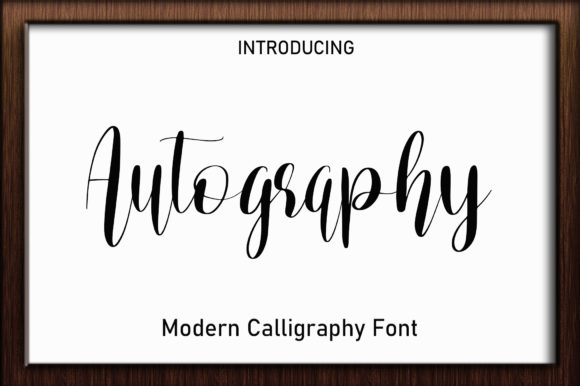
About Autography Font
Autography is an elegant and sophisticated script font with a delicate and thin lettering style that exudes a sense of refinement and charm. Its graceful curves and flowing strokes make it a perfect choice for creating stunning designs that leave a lasting impression.
The simplicity of Autography’s design adds to its timeless appeal, making it suitable for a wide range of applications. Whether you’re working on wedding invitations, thank-you cards, quotes, greeting cards, logos, business promotions, advertisements, or social media posts, Autography brings a touch of elegance and class to your projects.
One of the remarkable features of Autography is its ability to enhance the aesthetics of stationary art. Its ravishing style elevates the visual impact of your creations, turning ordinary designs into works of art. The font’s thin lettering provides an air of sophistication, making it a standout choice for projects that require an upscale and refined appearance.
Autography’s versatility shines through in its compatibility with various design mediums. From traditional paper-based projects like wedding invitations to digital platforms like social media posts and websites, Autography adapts seamlessly to different contexts, ensuring that your designs remain captivating and eye-catching across different platforms.
The font’s graceful curves and smooth lines make it a captivating choice for typography-driven designs. Its elegance adds a touch of luxury to your creations, making it particularly well-suited for premium and high-end branding projects. Whether you’re designing for a luxury brand or a special event, Autography’s stylish and sophisticated nature will help your designs stand out.
In conclusion, Autography is a thin-lettered and simple script font that captures attention with its ravishing style and timeless elegance. Its versatility allows it to excel in a variety of design applications, from wedding invitations to social media posts. By incorporating Autography into your projects, you can create beautiful and captivating designs that leave a lasting impression on your audience.